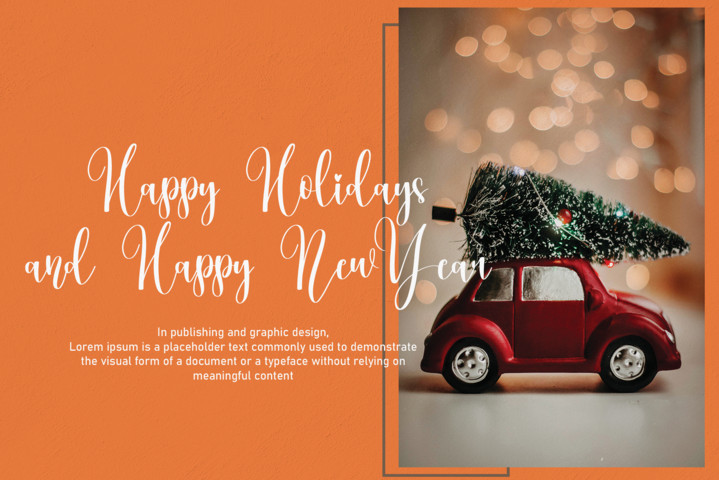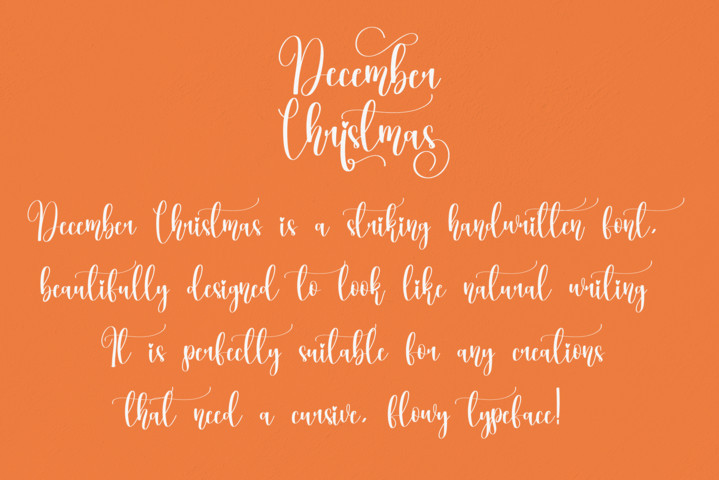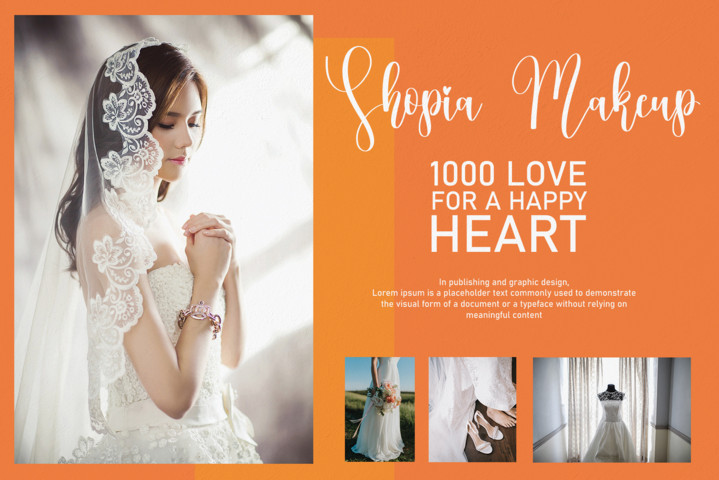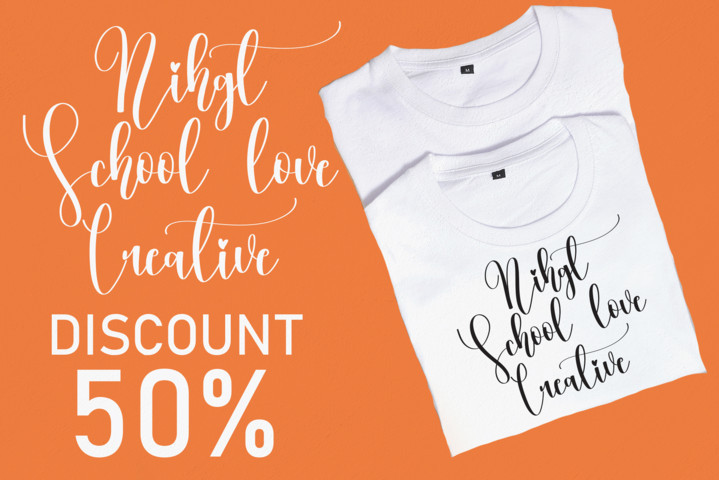
December Christmas Script Font
This font is a modern typeface with unique glyphs. This font is perfect for wall displays, wedding invitations, social media post logos, advertisements, product packaging, product designs, labels, photography, watermarks, invitations, stationery, and any project that requires taste handwriting.